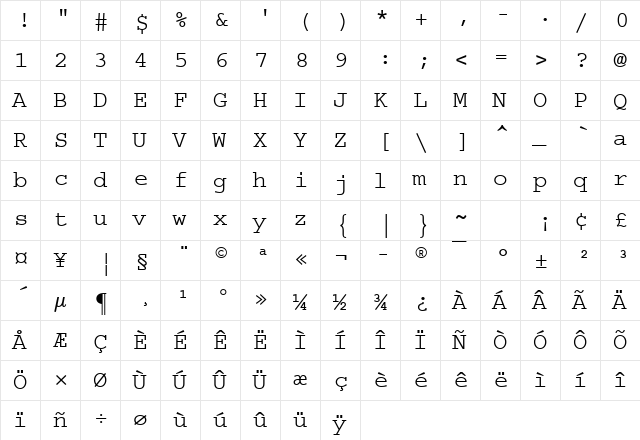
Courier (WT) Regular
Design Context for Courier (WT) Typeface
Courier (WT) uses fixed-width spacing throughout, giving it the structured, systematic character associated with coding environments and technical documentation.
Pro Tip: Pair Courier (WT) with a proportional sans for UI contexts where code-style labels and regular body copy need to coexist.